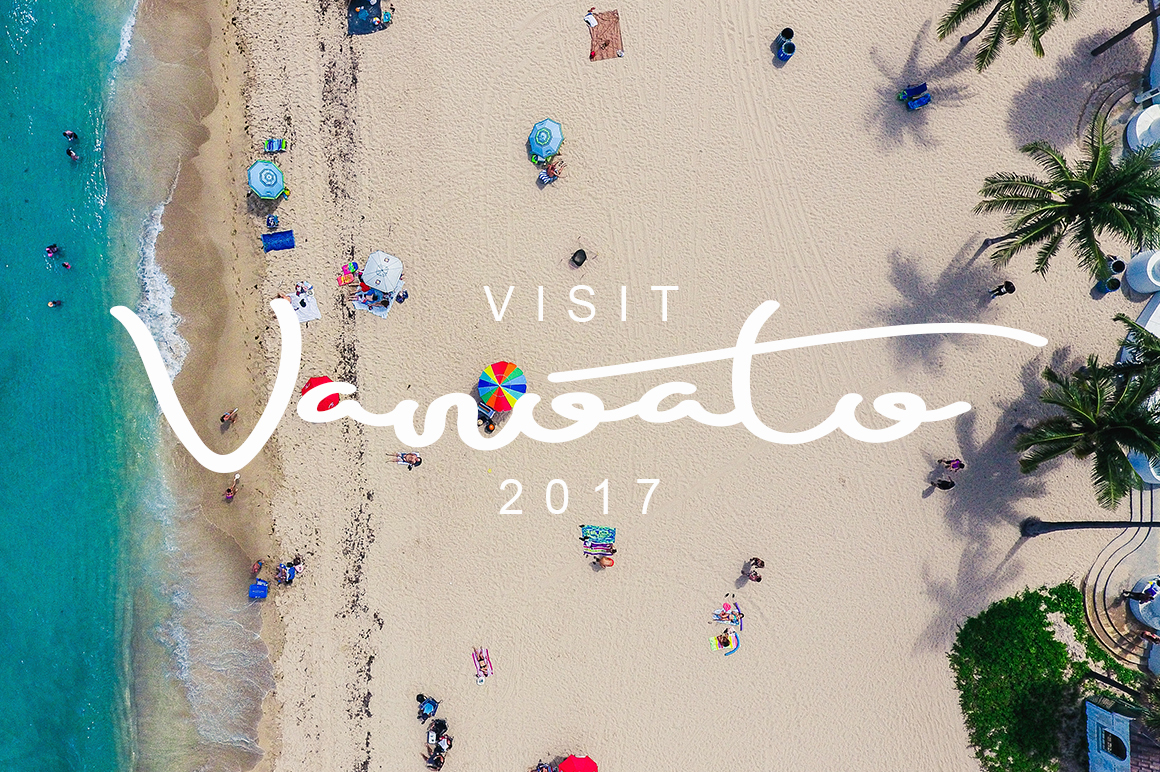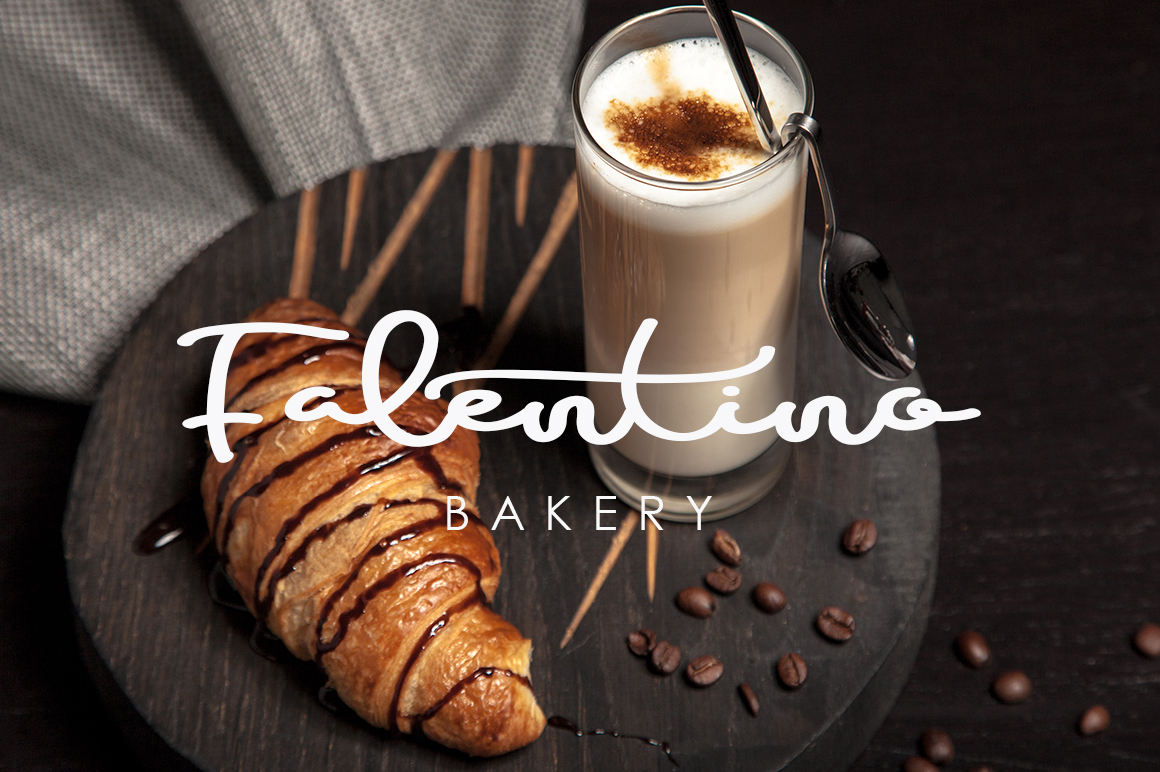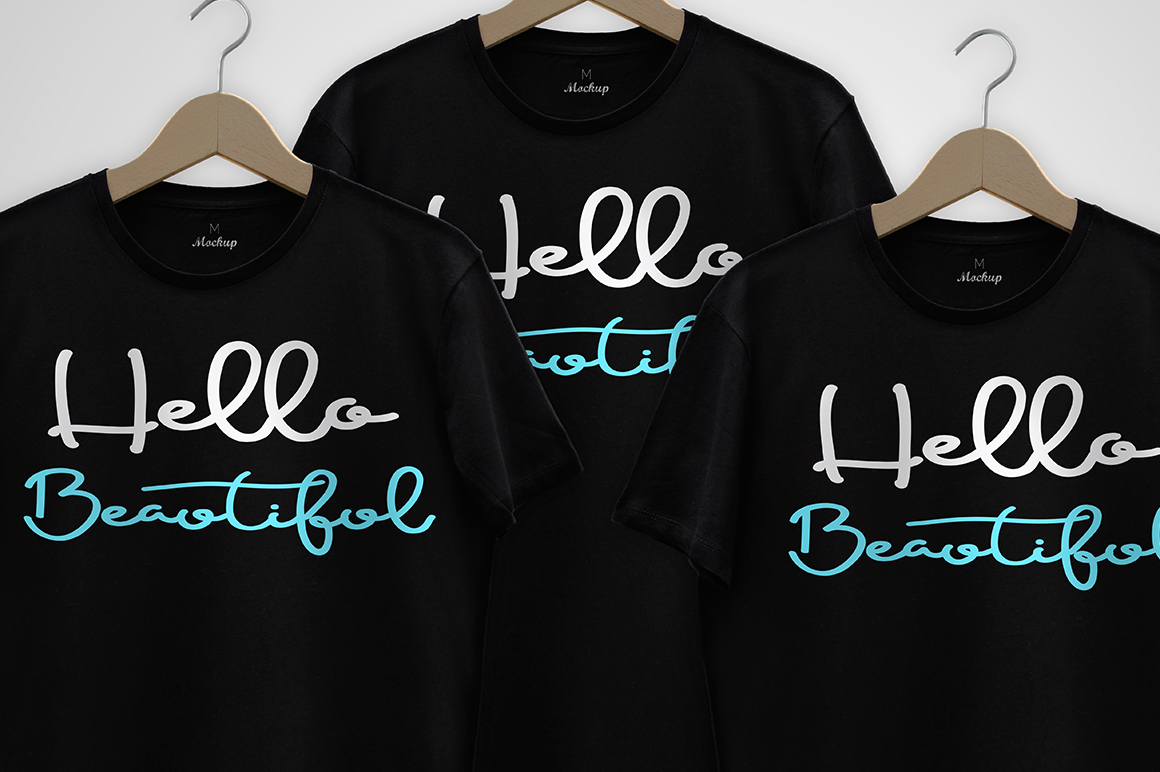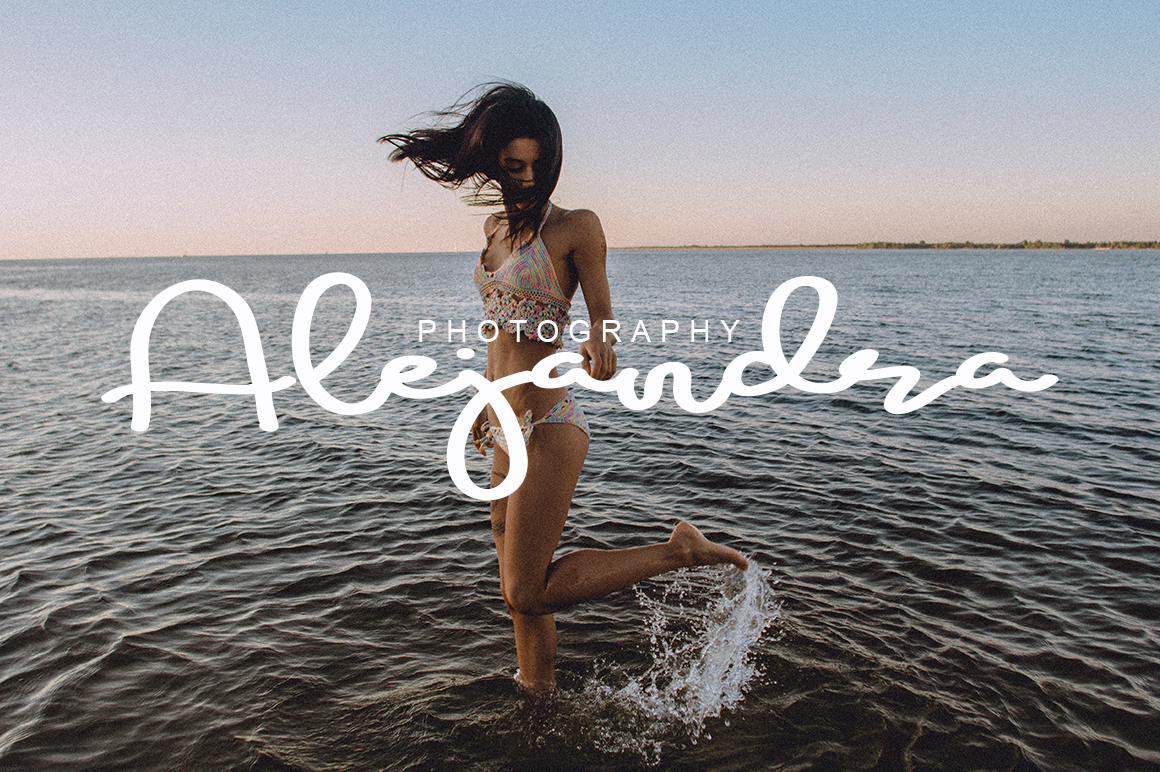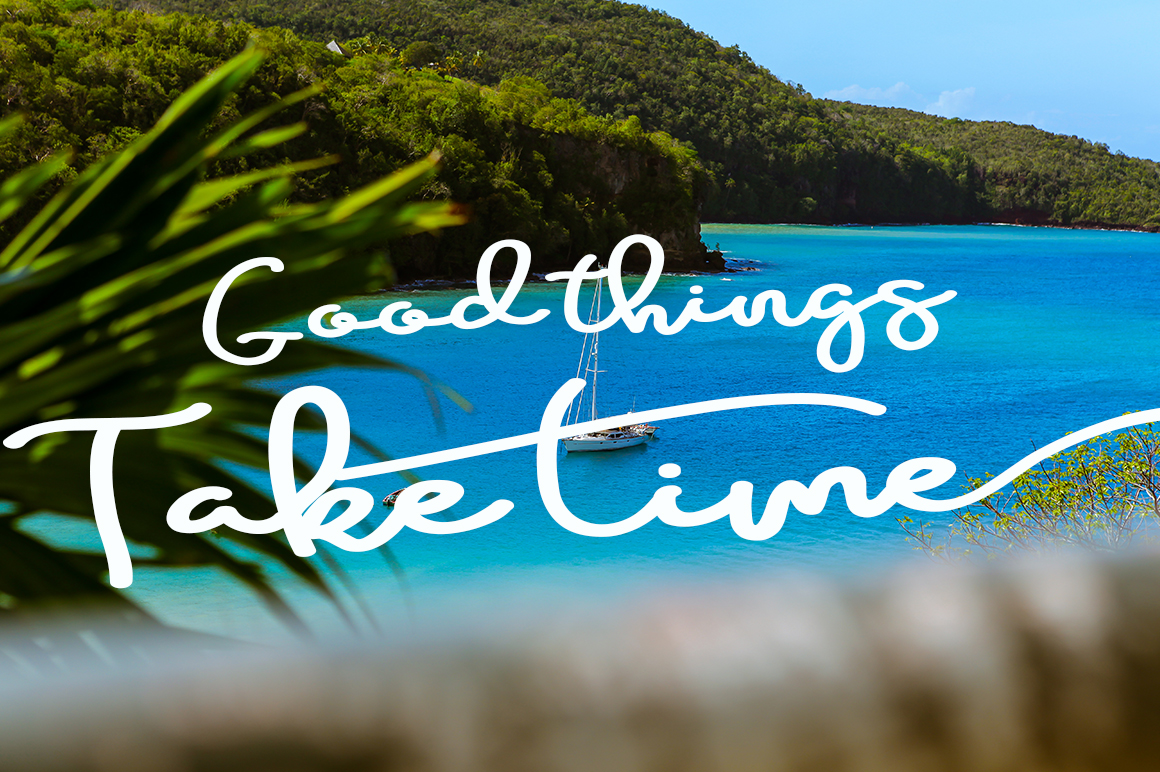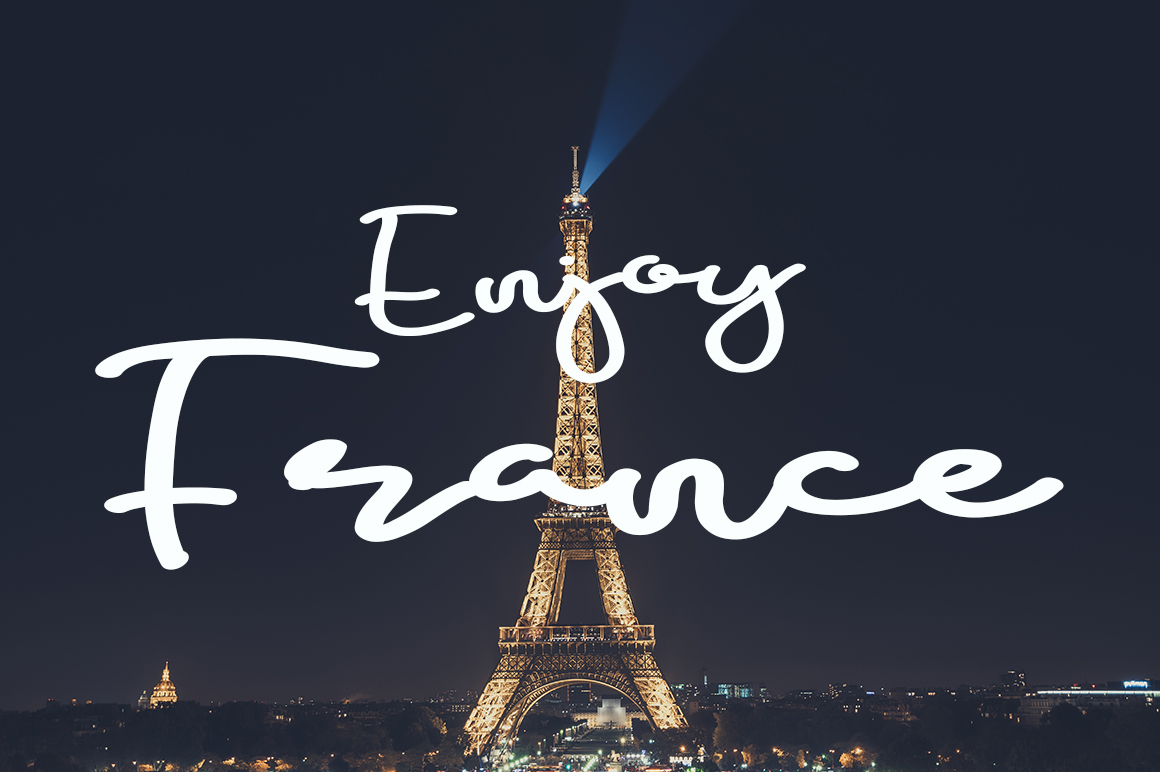
Introduction to Saswitta Font
Have you ever been stuck in a creative project, staring at a blank page, searching for the perfect font to bring your vision to life? It’s a feeling we’ve all experienced at some point, and it’s exactly what inspired us to explore the world of typography. Today, we’re excited to share with you one of our favorite discoveries: the beautiful Saswitta Font.
With its modern style and elegant lines, Saswitta Font is a valuable addition to any designer’s toolkit. Whether you’re working on a high-quality design project or simply looking for a reliable design resource, this font is sure to impress. And the best part? Saswitta Font is available for free download, making it an accessible choice for creatives of all levels.
Key Features of Saswitta Font
- High-quality font with a transparent background, perfect for creative projects that require a clean and minimalist design.
- Comes in 4 font styles: Regular, Italic, Bold, and Bold Italic, offering versatility for various design applications.
- Supports a wide range of languages, including English, making it a great choice for international creative projects.
- Designed with a modern and elegant feel, the Saswitta Font is ideal for use in branding, advertising, and editorial design.
- Unique characteristic: the Saswitta Font features a unique combination of modern and classic elements, giving it a timeless appeal that works well in both digital and print designs.
Honest Review: Saswitta Font
I recently came across the Saswitta Font, a free download that caught my eye. As a designer, I appreciate high-quality design resources that can elevate a creative project. The Saswitta Font is no exception. It’s a versatile font that can be used for a variety of applications, from digital design to print materials.
What works well with the Saswitta Font is its unique and elegant design. The font is perfect for creating a sophisticated and modern look in any design project. It’s also highly legible, making it suitable for both body text and headings. Additionally, the font is available for free download, which is a definite plus for designers on a budget.
Here are some of the key features of the Saswitta Font:
- Unique and elegant look
- Perfect for digital and print design
However, there are some limitations to consider. The Saswitta Font does not have a transparent background, which may be a drawback for designers who want to use the font on a background image. Additionally, the font may not be suitable for all types of creative projects.
Overall, I’m impressed with the Saswitta Font. It’s a high-quality design resource that can add a touch of sophistication to any creative project. While it may have some limitations, I believe it’s a valuable addition to any designer’s toolkit. ⭐️⭐️⭐️⭐️⭐️ (5/5 stars)
Tips for Getting the Most Out of Saswitta Font
Experiment with different font sizes and styles to create a visually appealing design. Combine Saswitta Font with other design elements to add depth and interest to your project.
Saswitta Font is ideal for a variety of creative projects, including social media graphics, infographics, and presentations. Its unique style and high quality make it a great choice for designers looking for a distinctive design resource.
Alternatives to Saswitta Font
Monserrrat is a popular sans-serif font known for its high quality and versatility. It’s perfect for creative projects that require a modern and sleek look. Montserrat is available for free download and can be used as a replacement for Saswitta Font in designs that need a more urban feel. Montserrat is more geometric and modern than Saswitta Font, making it ideal for digital designs and logos.
Open Sans is another highly-regarded sans-serif font that offers a clean and transparent background, making it suitable for creative projects that require a high level of legibility. It’s available for free download and is widely used in digital designs, including websites and mobile apps. Open Sans is more minimalist than Saswitta Font, making it ideal for simple and elegant designs.